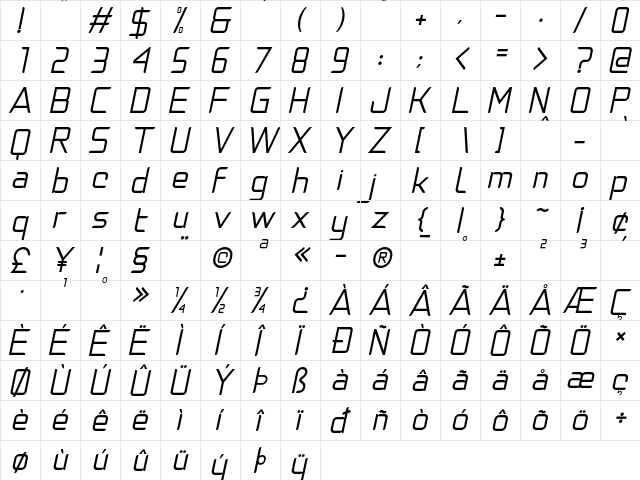
Natalisa Regular Italic Demo Regular Italic
Design Context for Natalisa Regular Italic Demo Typeface
Natalisa Regular Italic Demo takes a measured approach to typography — its balanced proportions and neutral character make it a reliable workhorse for both digital and print work. Its italic angle brings a sense of urgency and motion to the letterforms.
Pro Tip: Use Natalisa Regular Italic Demo for emphasis, pull quotes, and subheadings where its slanted energy can add rhythm to the layout.